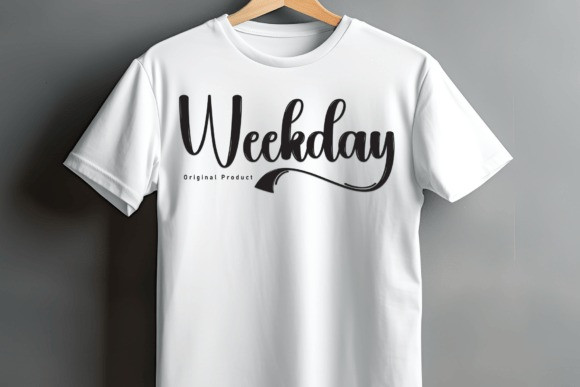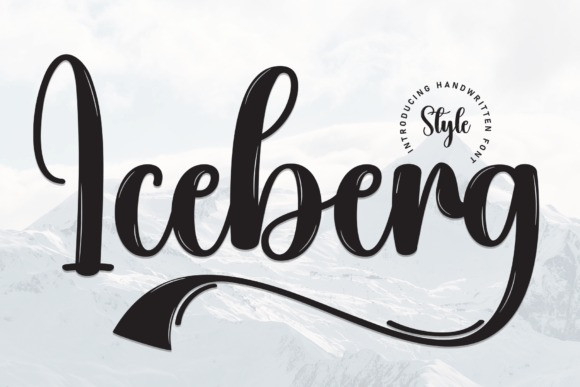
Iceberg Script Font
Iceberg Script Font is a charming handwritten font that exudes a cool, laid-back vibe. With its flowing strokes and icy flair, it adds a touch of effortless style to any project. Perfect for creating a personal, handcrafted feel with a hint of frosty elegance.